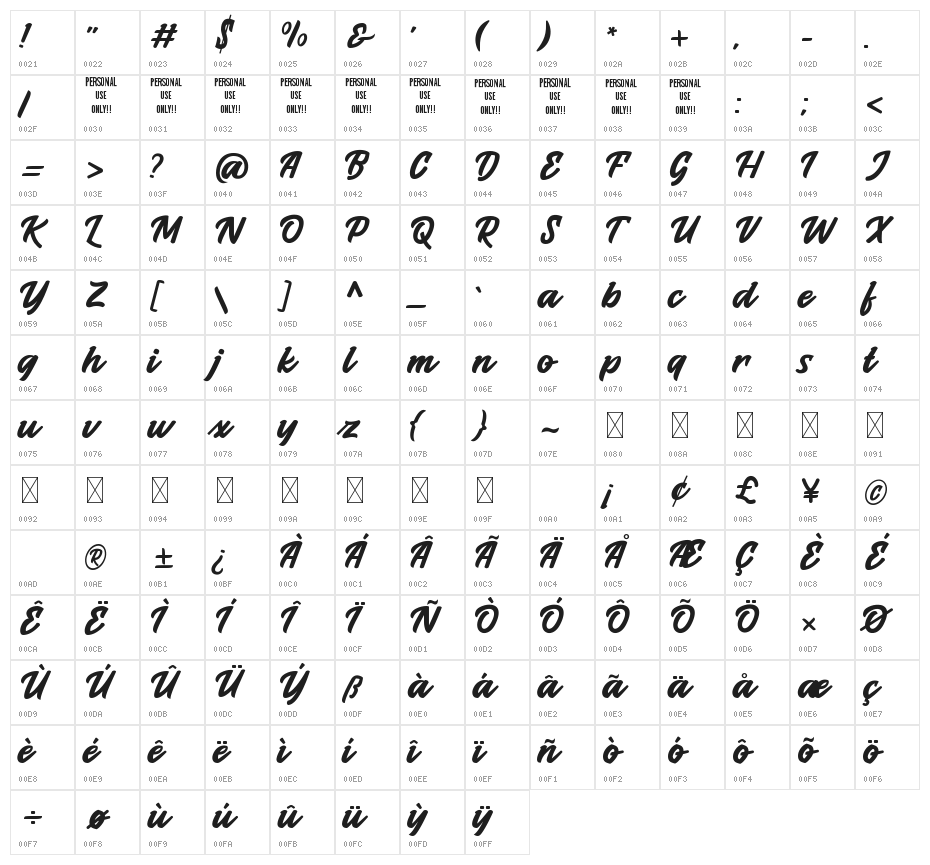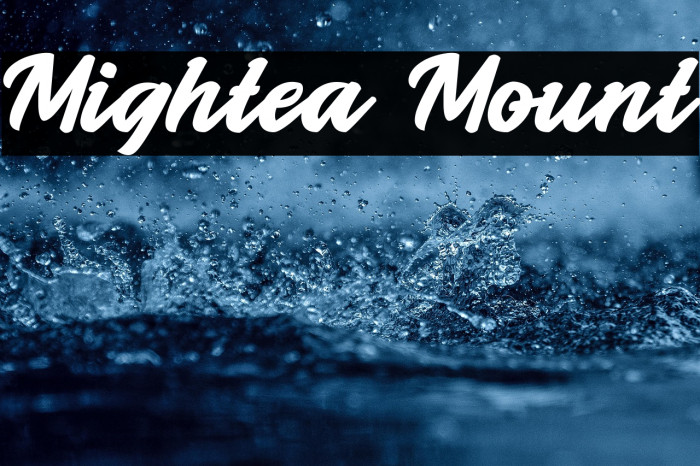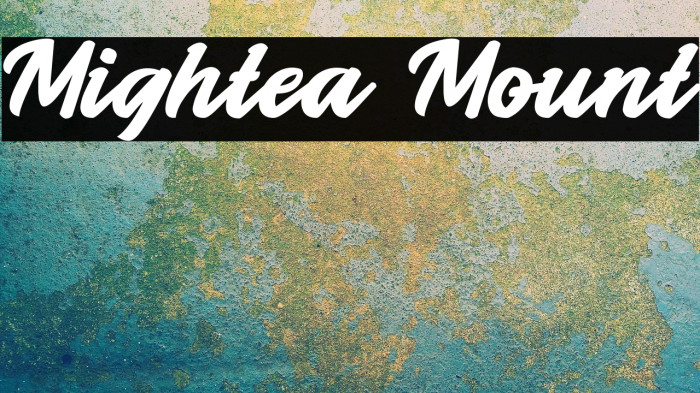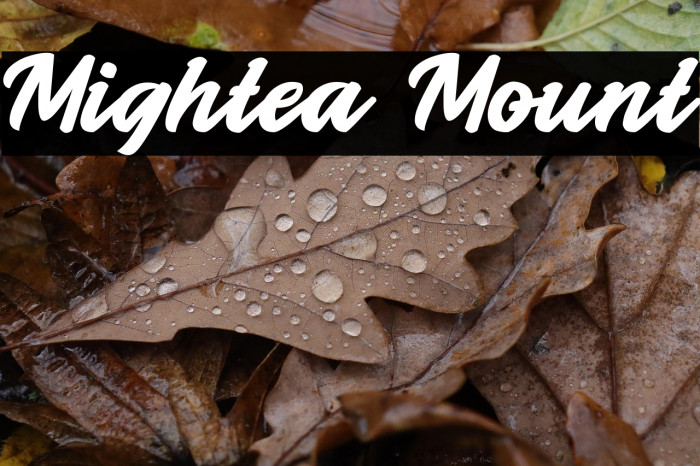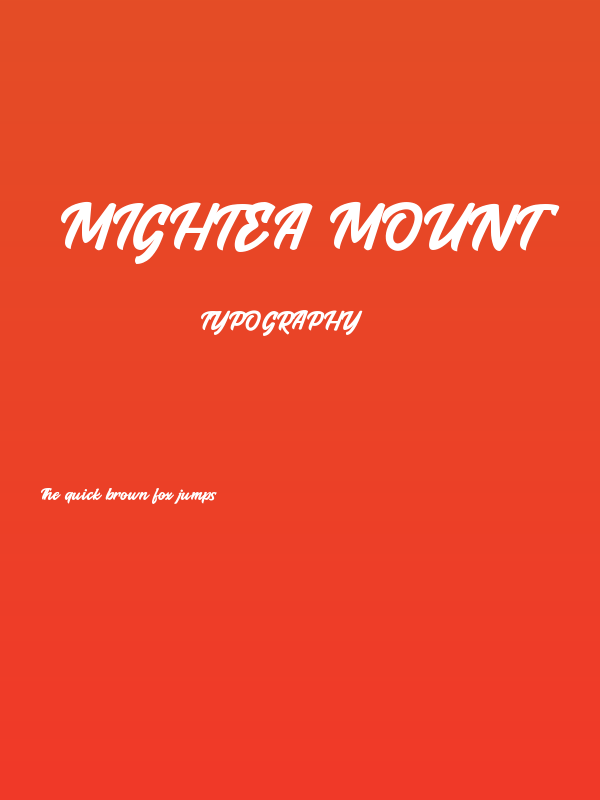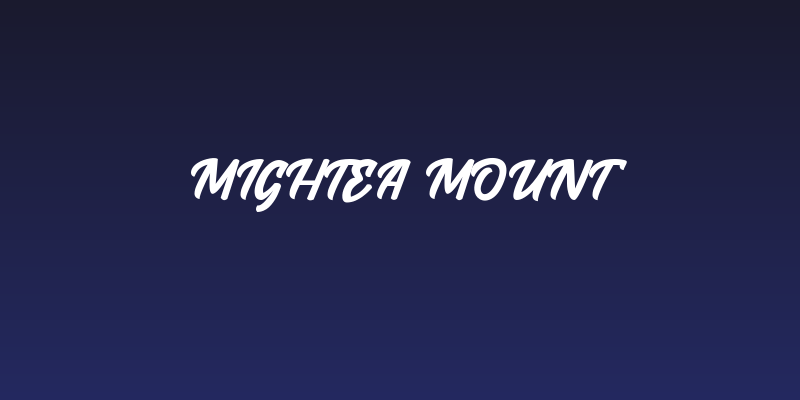
Mightea Mount Font
Mightea Mount Description
This font exhibits a bold and dynamic script style, characterized by its fluid and connected letterforms that mimic natural handwriting. The uppercase letters are prominent and slightly slanted, adding a sense of movement and elegance. The lowercase letters maintain a consistent flow, enhancing readability while preserving the artistic flair. The numbers and special characters complement the alphabet with similar stylistic features, ensuring a cohesive appearance across all text. This font is ideal for creating eye-catching designs that require a personal touch, such as invitations, branding, or artistic projects.
| Proposed Projects | Ideal for invitations, branding, artistic projects, and any design requiring a personal touch. |